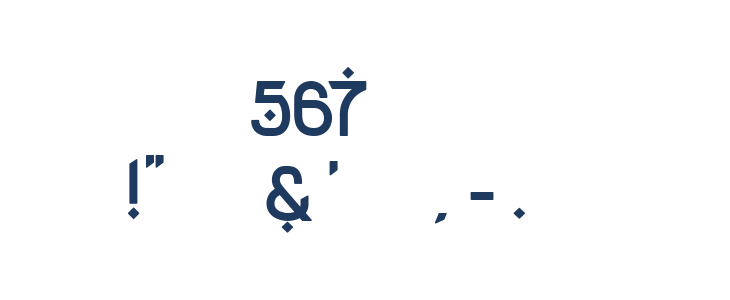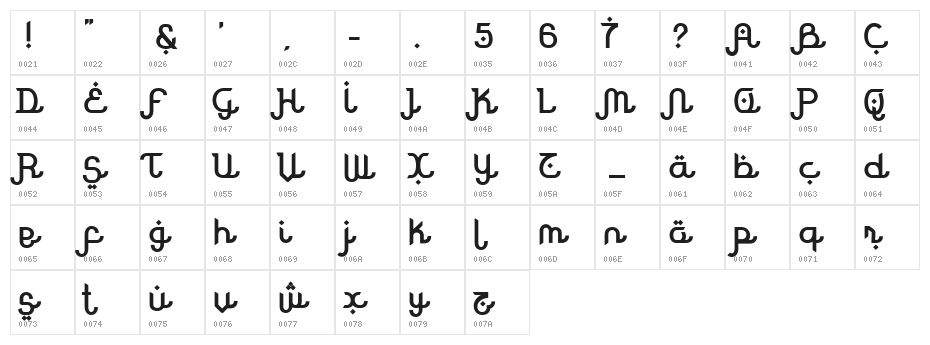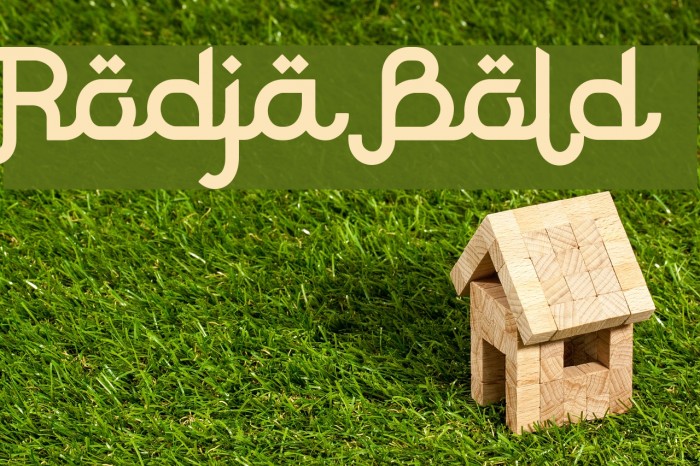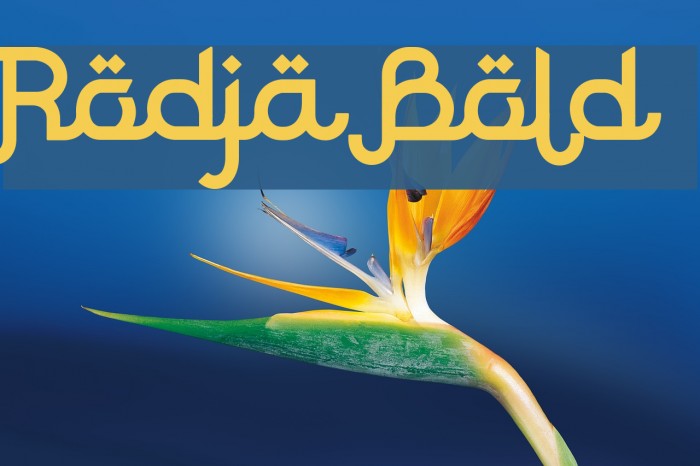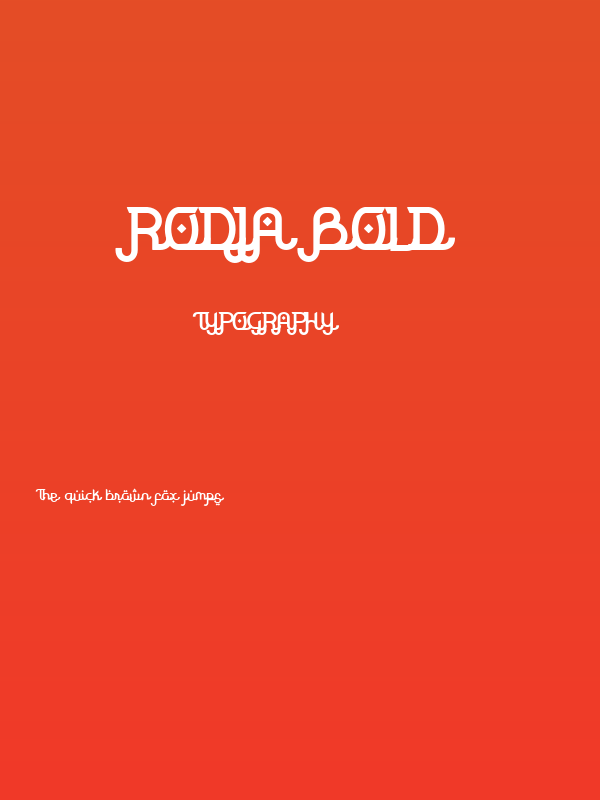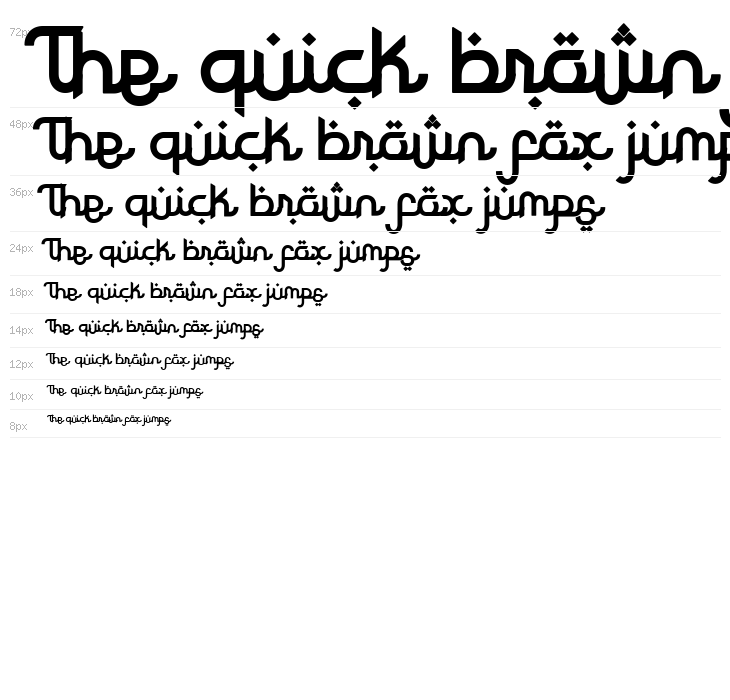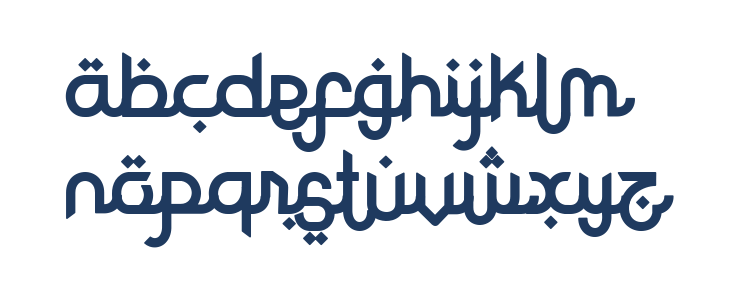
Rodja Bold Font
Rodja Bold Description
This font features a bold and modern design with a unique geometric style. The characters are interconnected with a continuous line that creates a sense of flow and unity. The uppercase and lowercase letters maintain a consistent height, giving the font a uniform appearance. The numbers and special characters are designed to match the overall aesthetic, with rounded edges and smooth curves. This font is highly legible and stands out due to its distinctive look, making it suitable for various creative applications.
| Proposed Projects | Ideal for branding, logos, headlines, and posters where a modern and unique look is desired. |